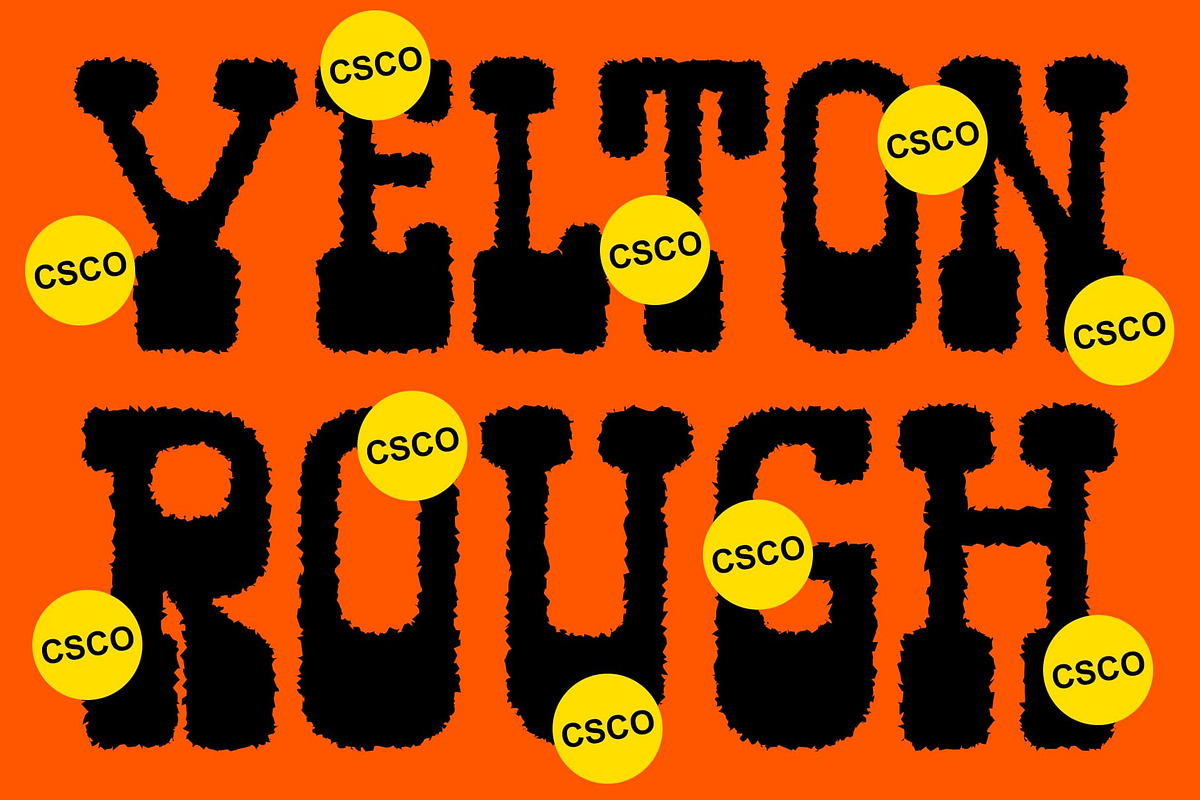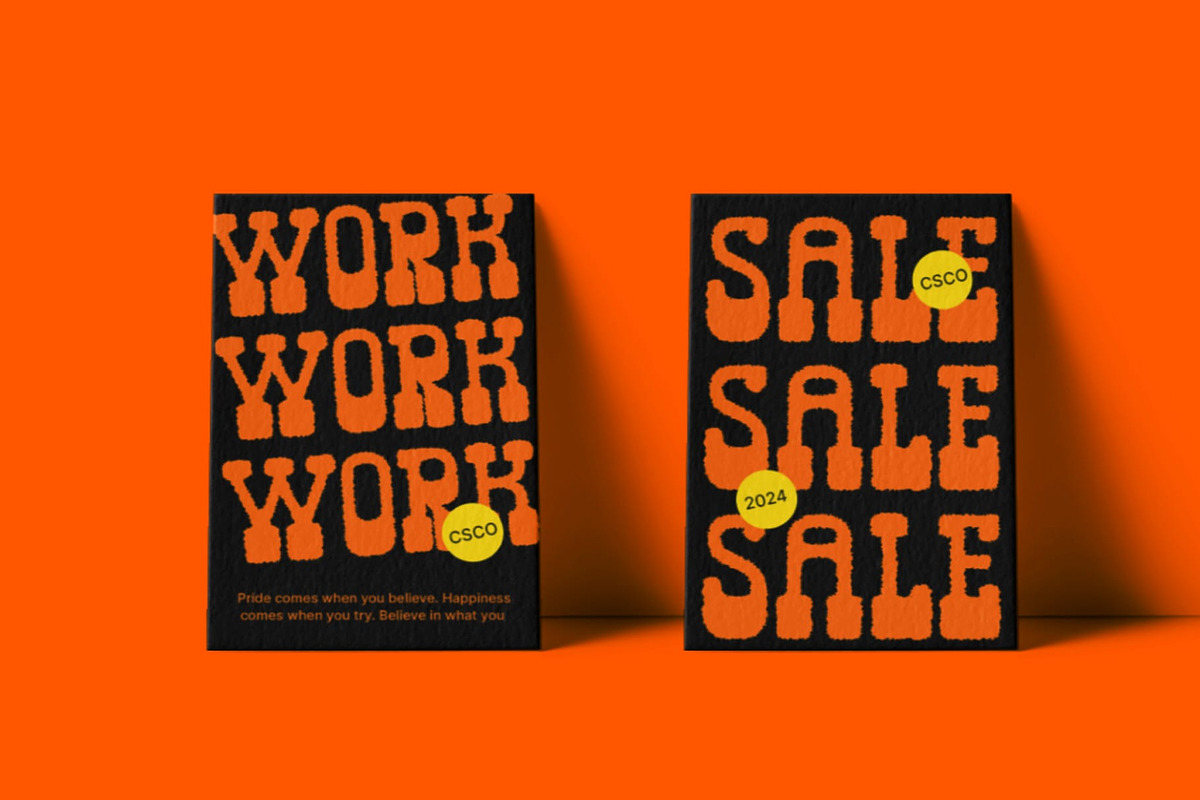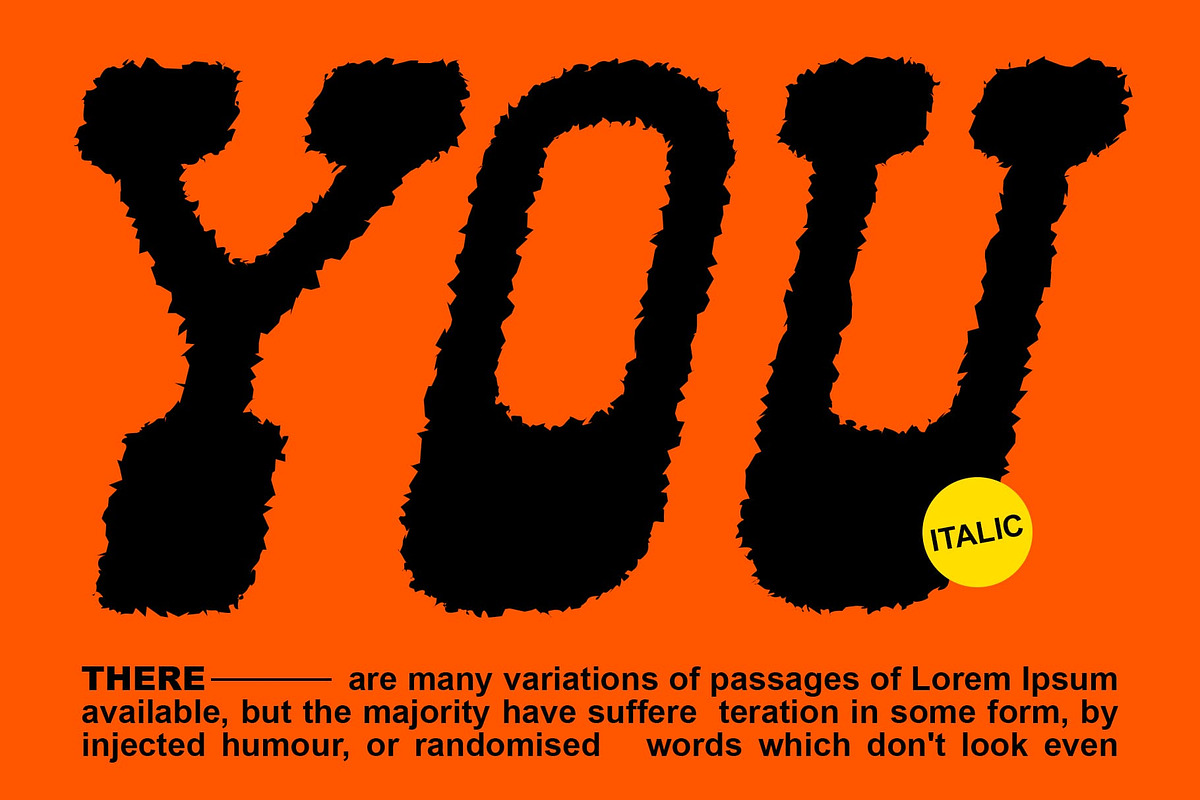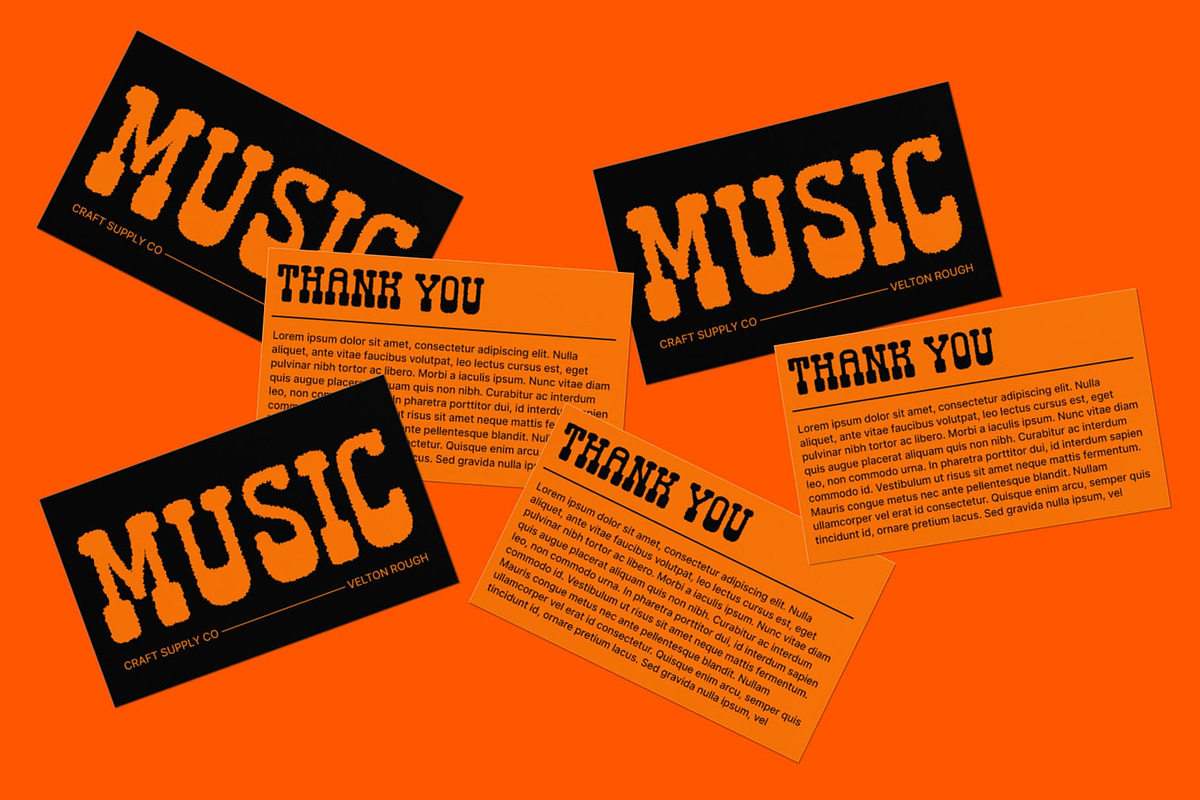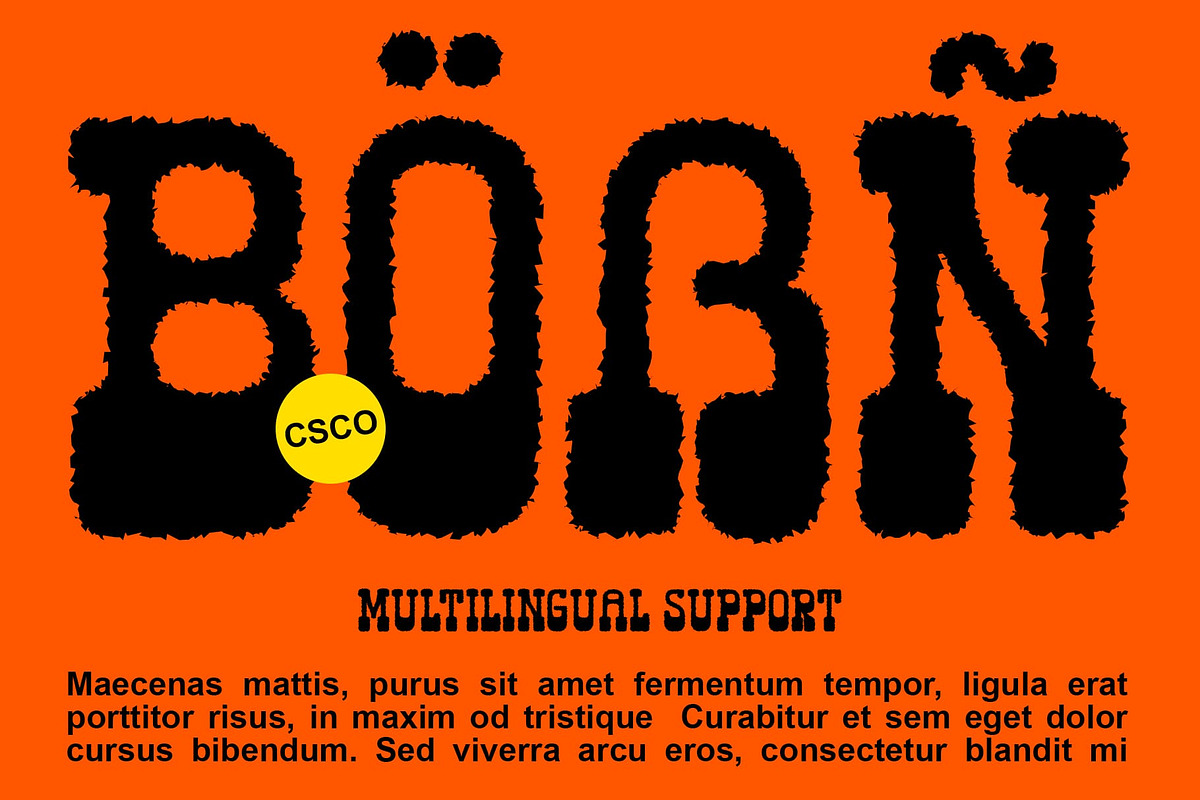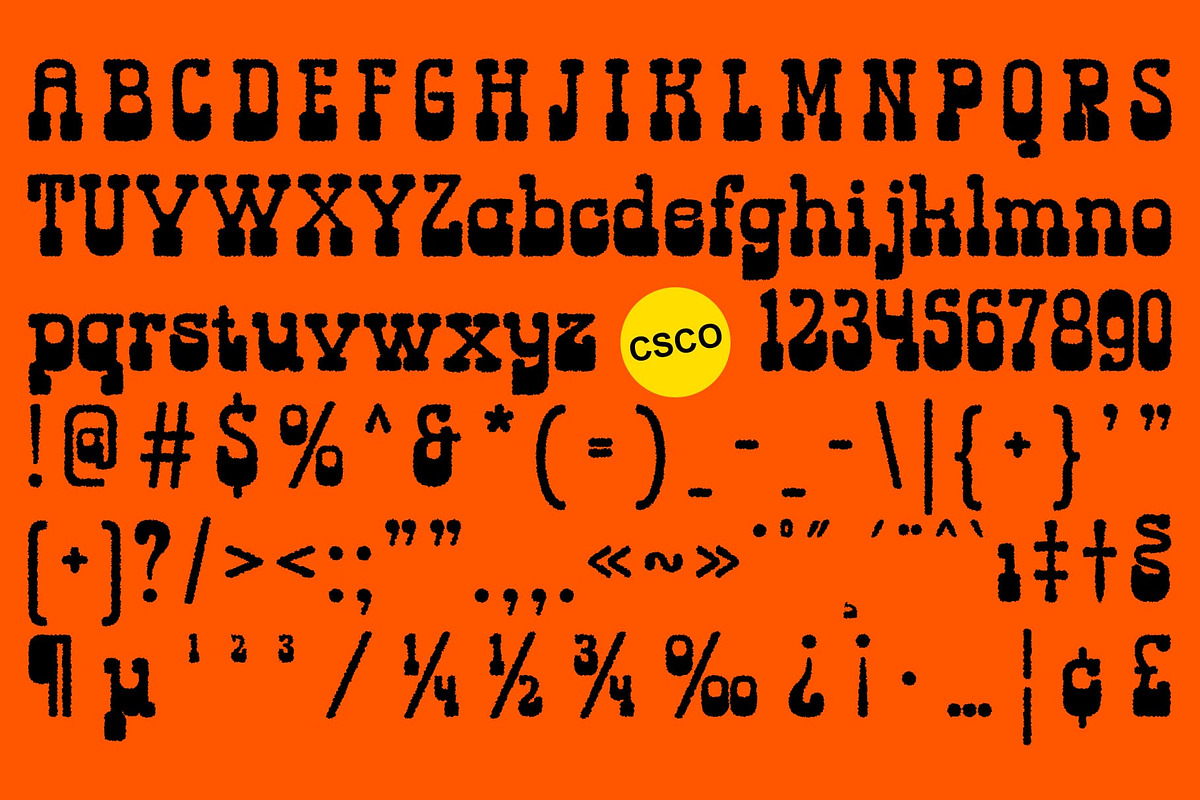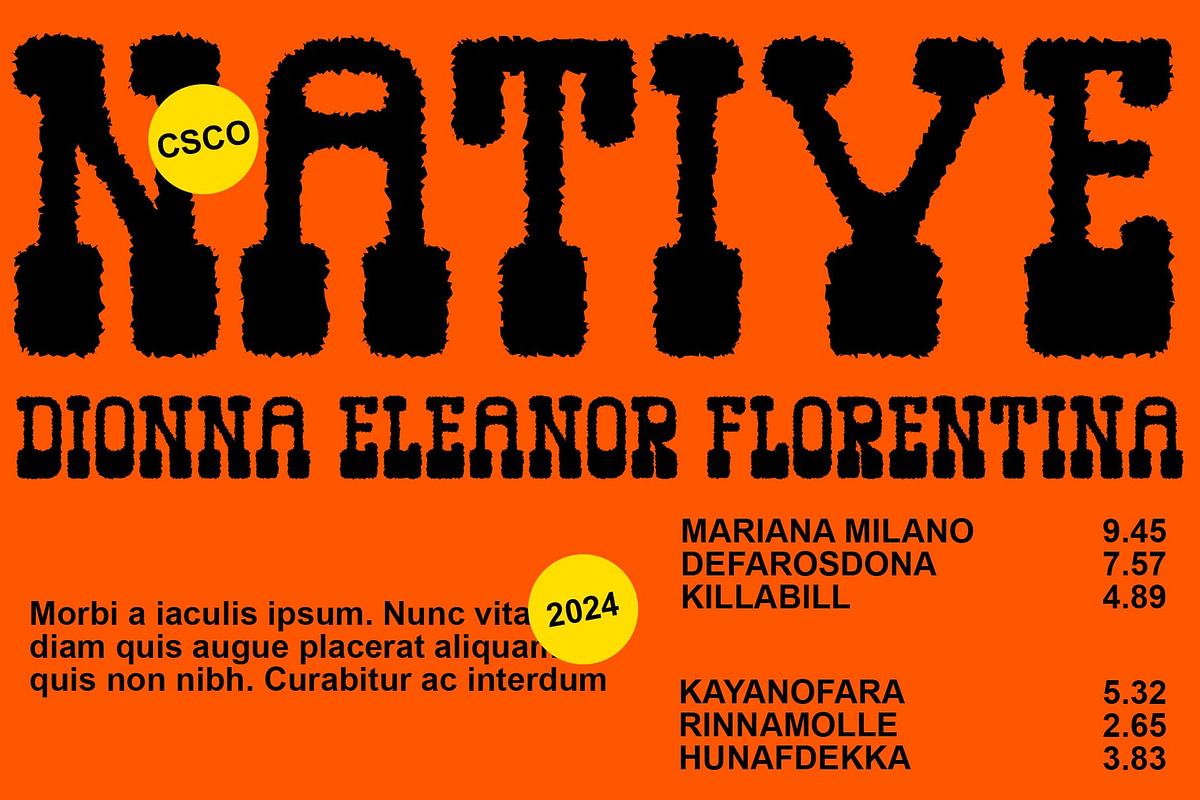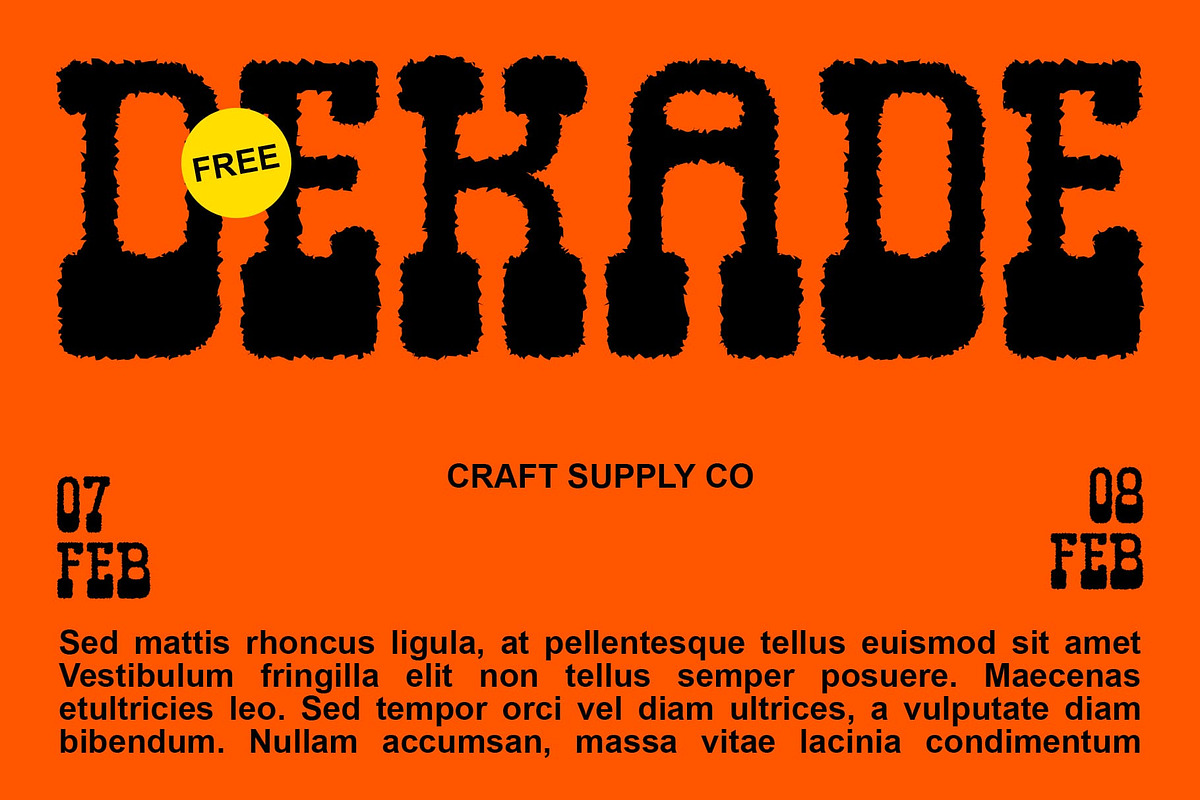
Velton Rough
Introducing Velton Rough: A Bold Display Typeface
Distinctive Reverse Contrast Velton Rough stands out with its unique reverse contrast display, where the thick strokes appear in the horizontal elements while the vertical stems remain thinner. This striking feature catches the eye and adds a sense of dynamism to any design.
Rugged Aesthetic with Rough Effects Embracing a rugged aesthetic, This font is characterized by its rough texture effects. These gritty details lend the font a raw and authentic appearance, perfect for projects seeking a touch of edginess and personality.
Tailored for Display Purposes Crafted specifically for display applications, This font excels in making a statement. Whether used in headlines, posters, or branding materials, its bold presence and unconventional style command attention and leave a lasting impression.
Versatile and Impactful Despite its bold and unconventional design, This font offers versatility in its application. It can seamlessly adapt to various design contexts, from urban-inspired graphics to vintage-themed projects, adding depth and character to any visual composition.
Bold and Unconventional This font emerges as a bold and unconventional display typeface, perfect for projects that demand attention and personality. With its distinctive reverse contrast and rough texture effects, it brings a rugged charm to any design, making it a versatile choice for creative endeavors.